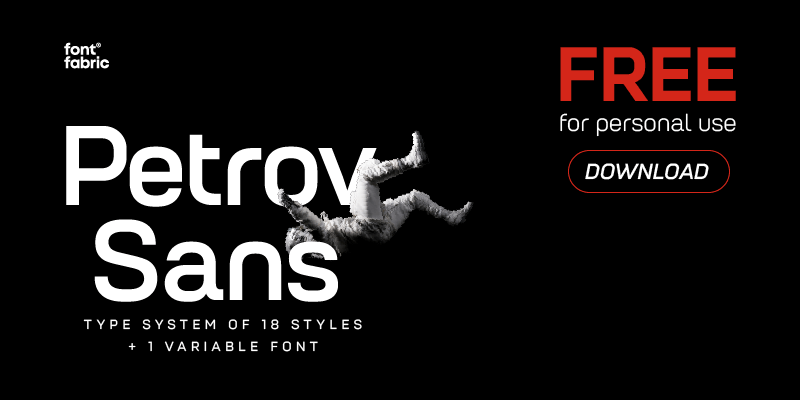
Petrov Sans Font Family is a font with a geometric approach that is out of this world. Featuring 9 uprights and 9 italics, Petrov Sans Font Family is a versatile typeface that will elevate any design project. |